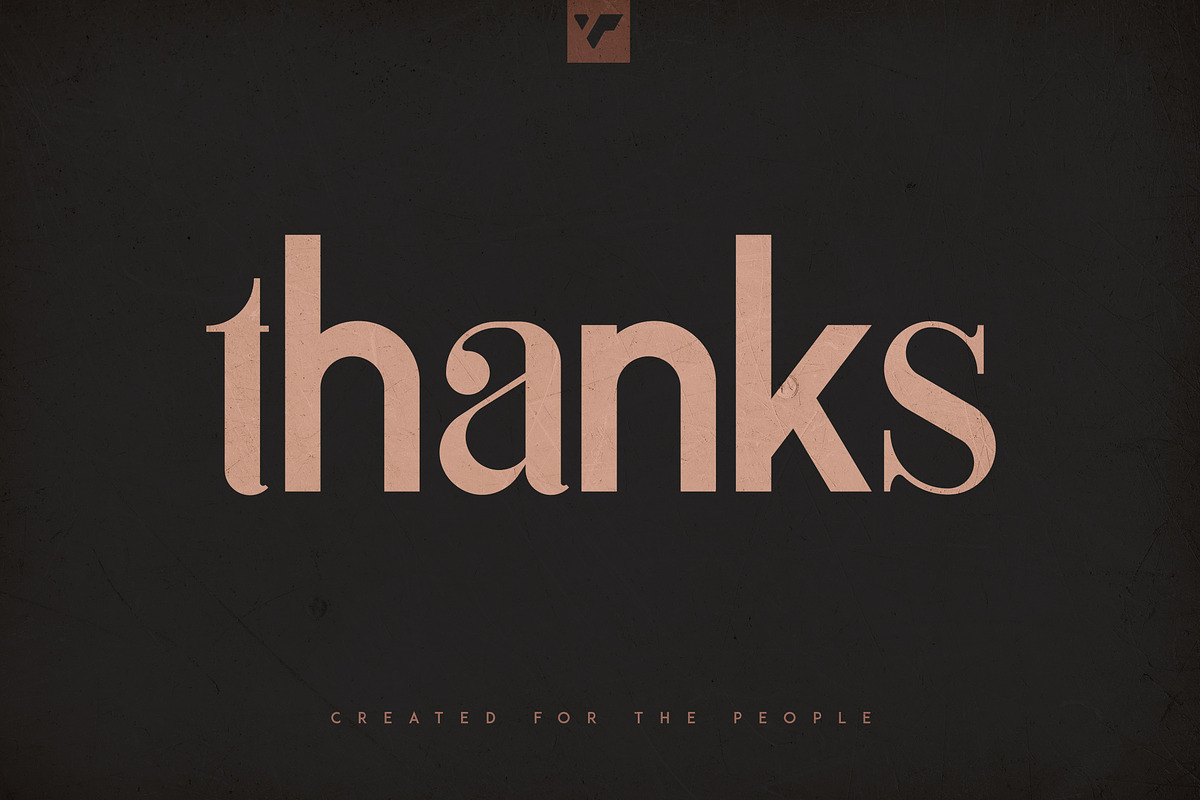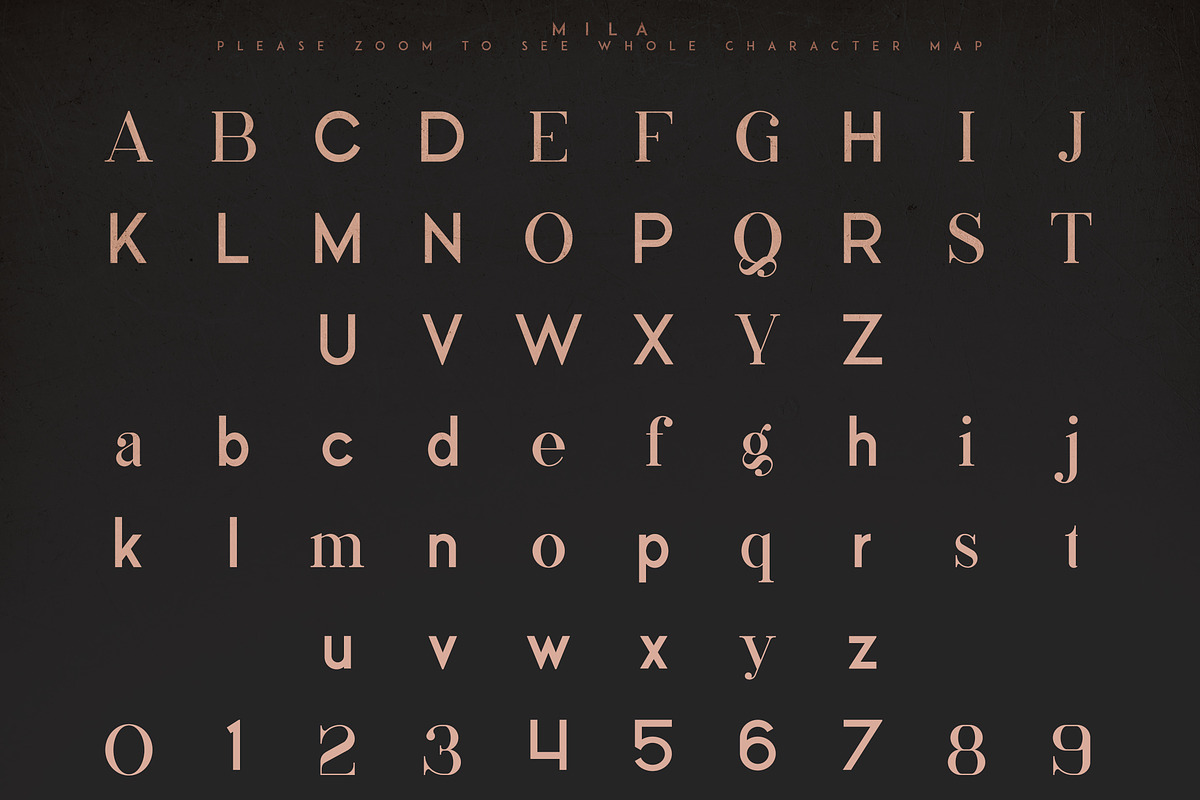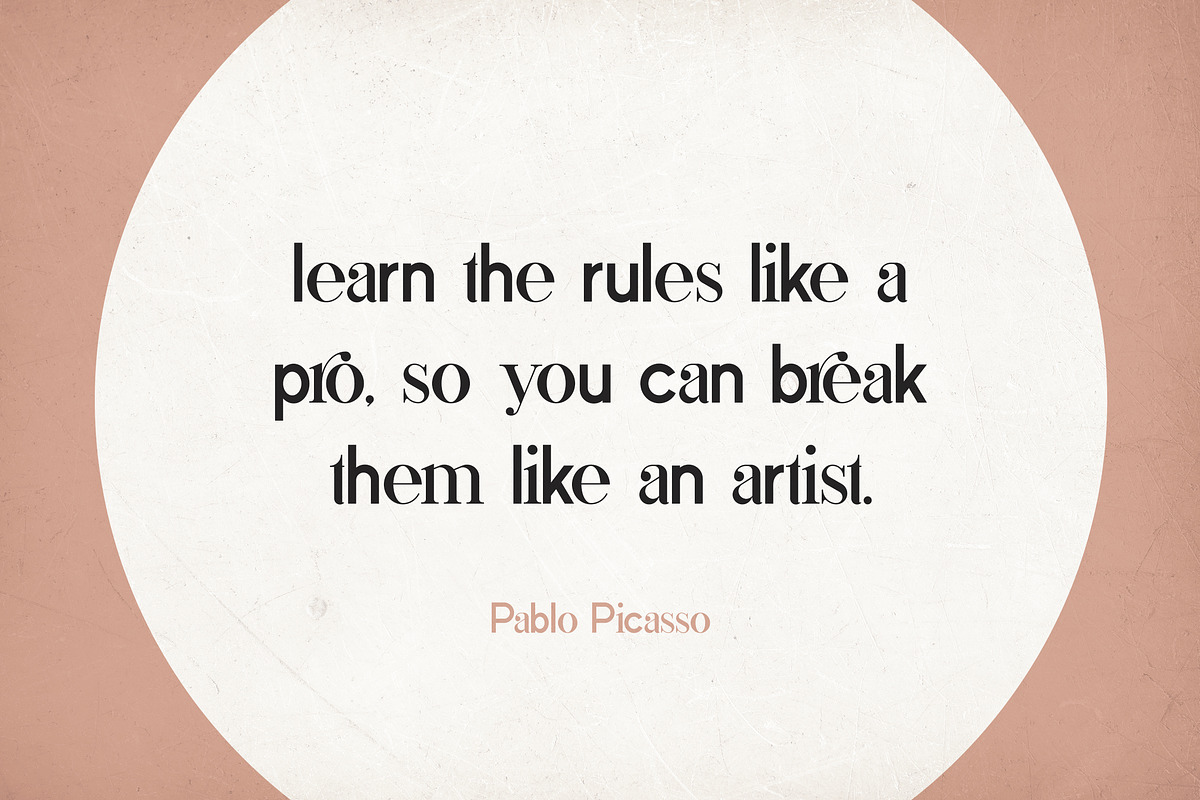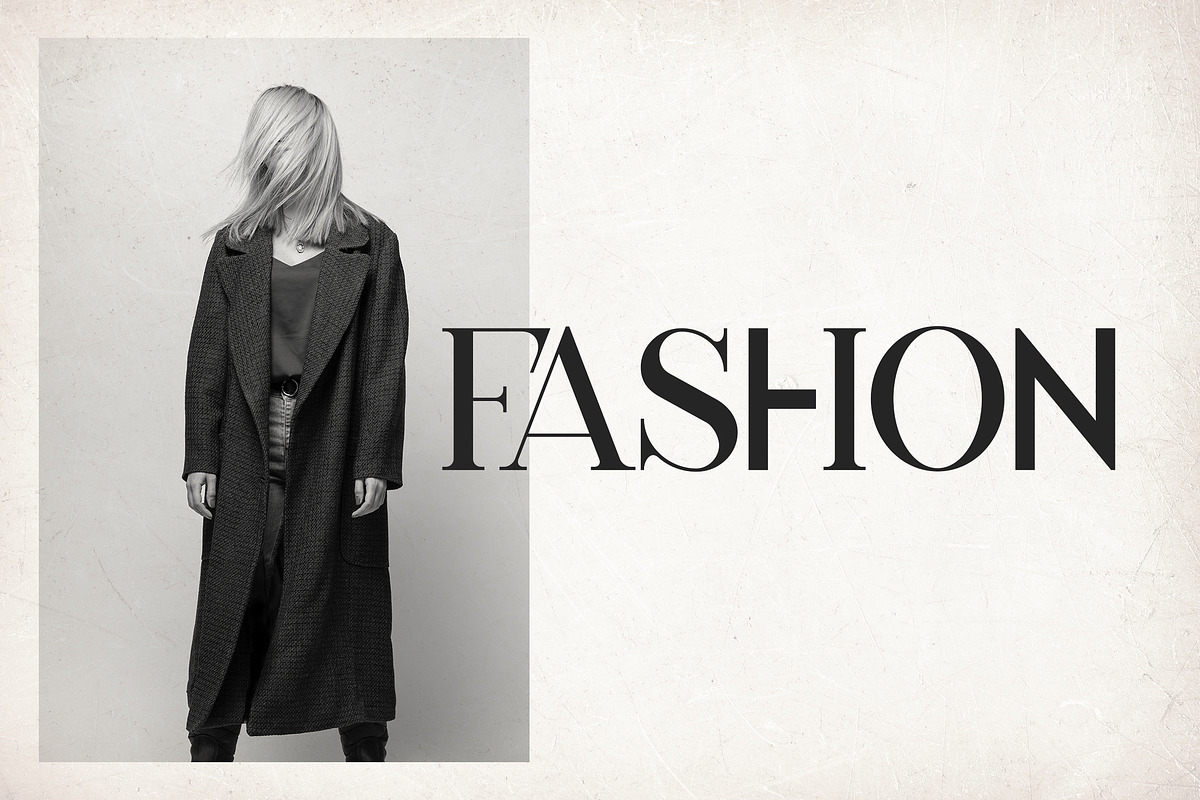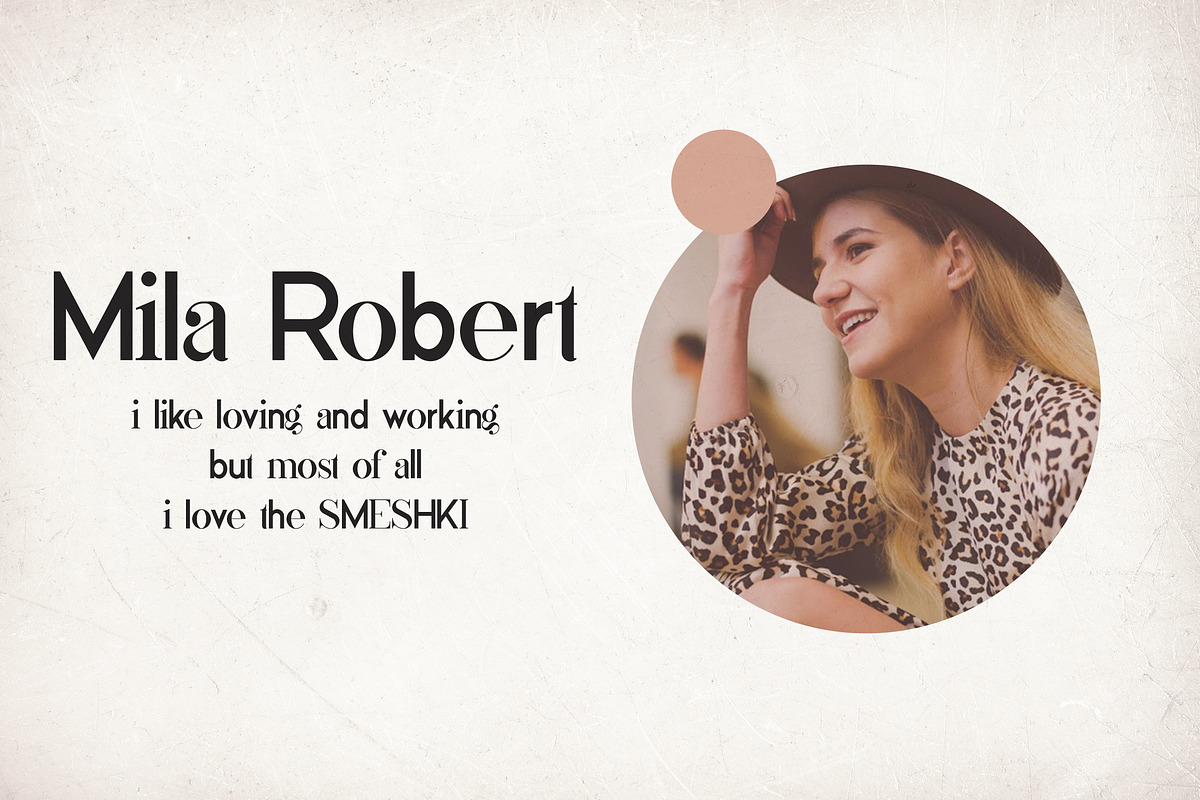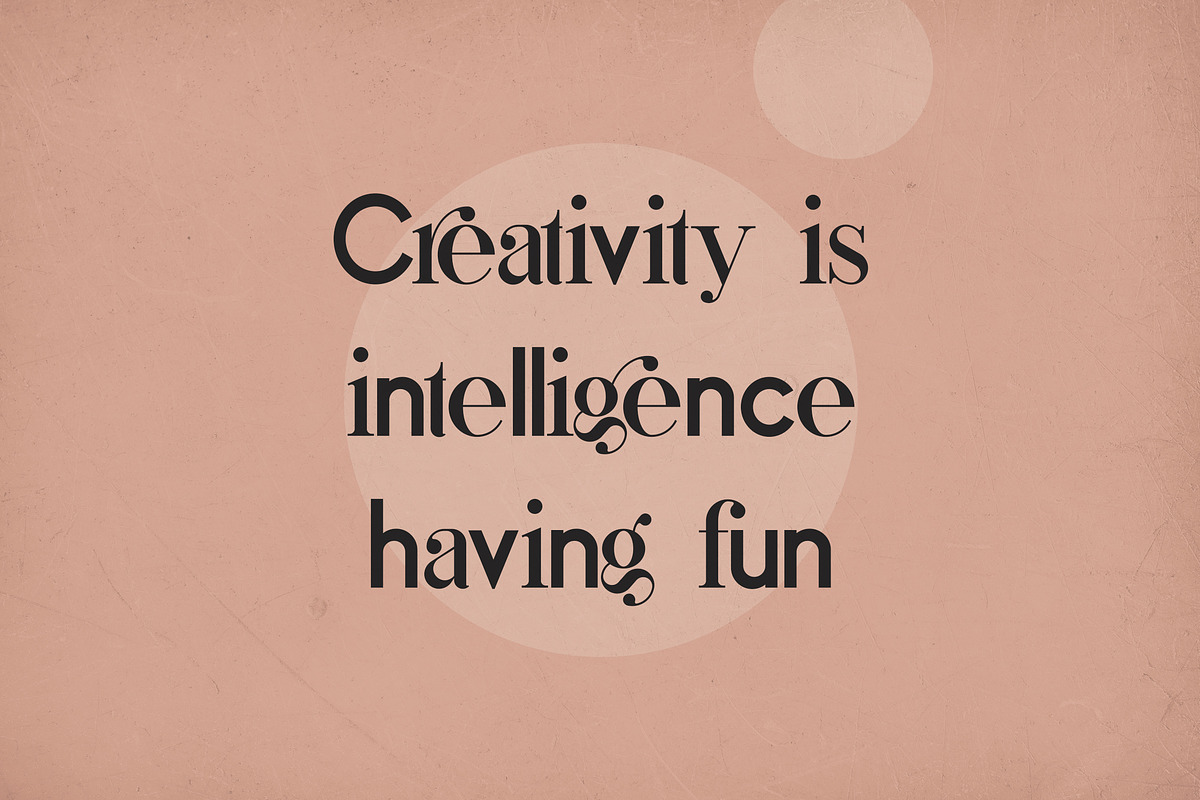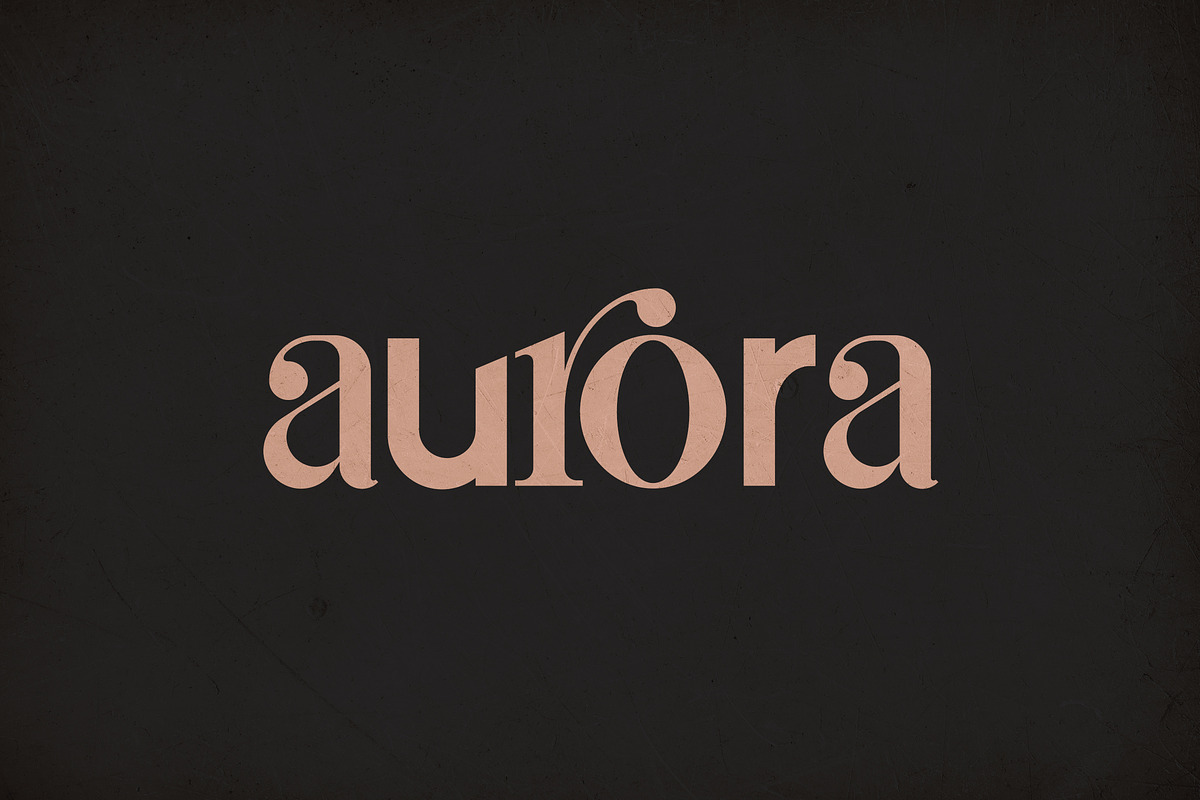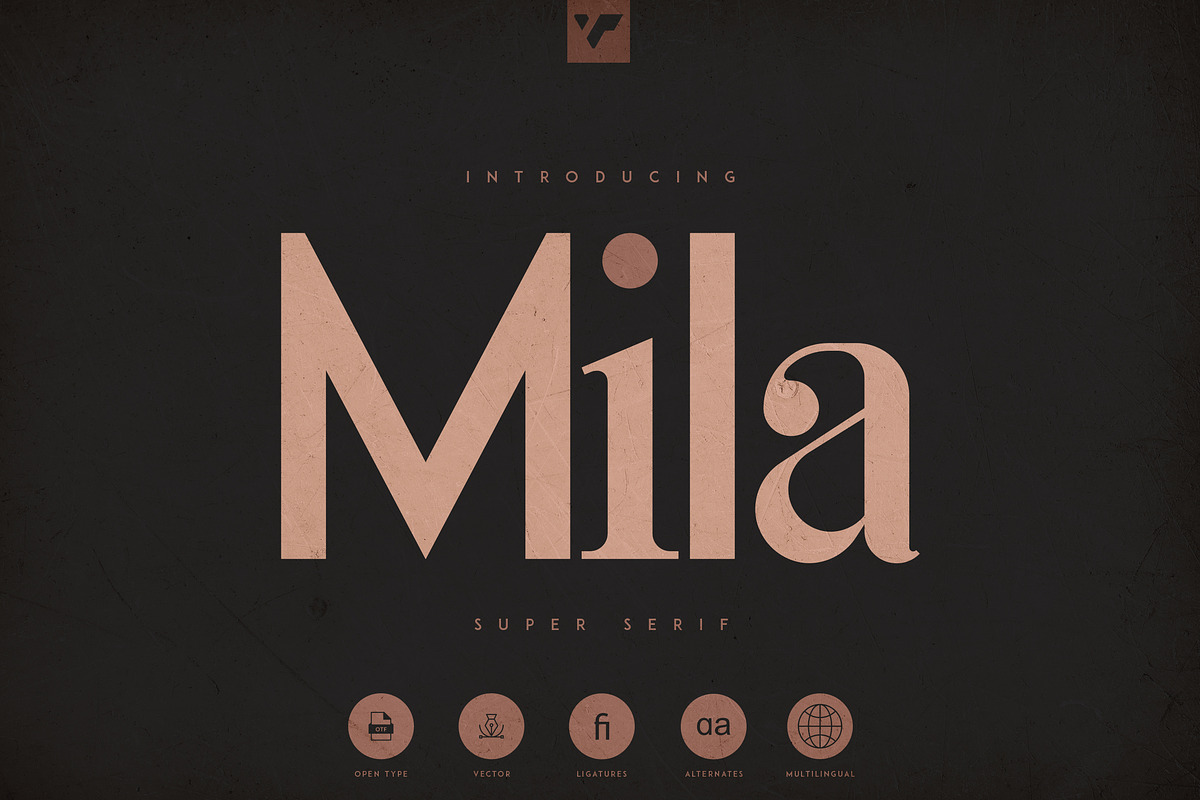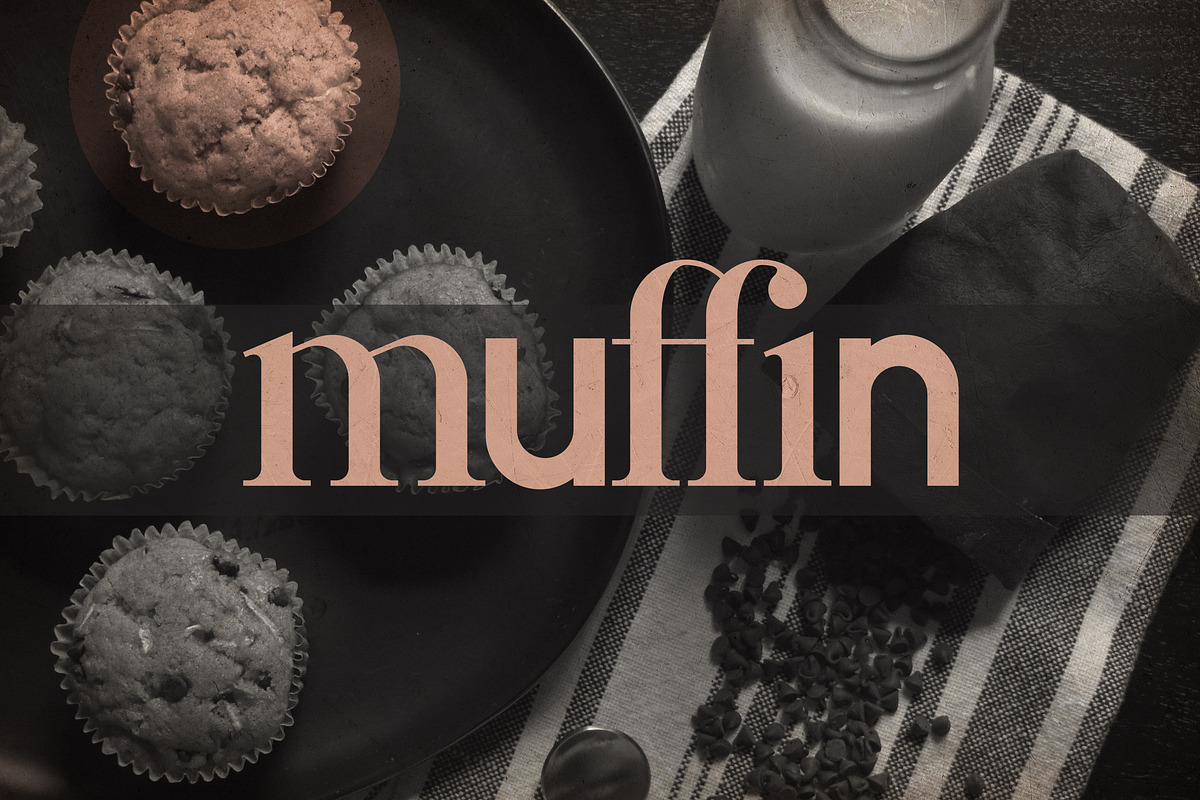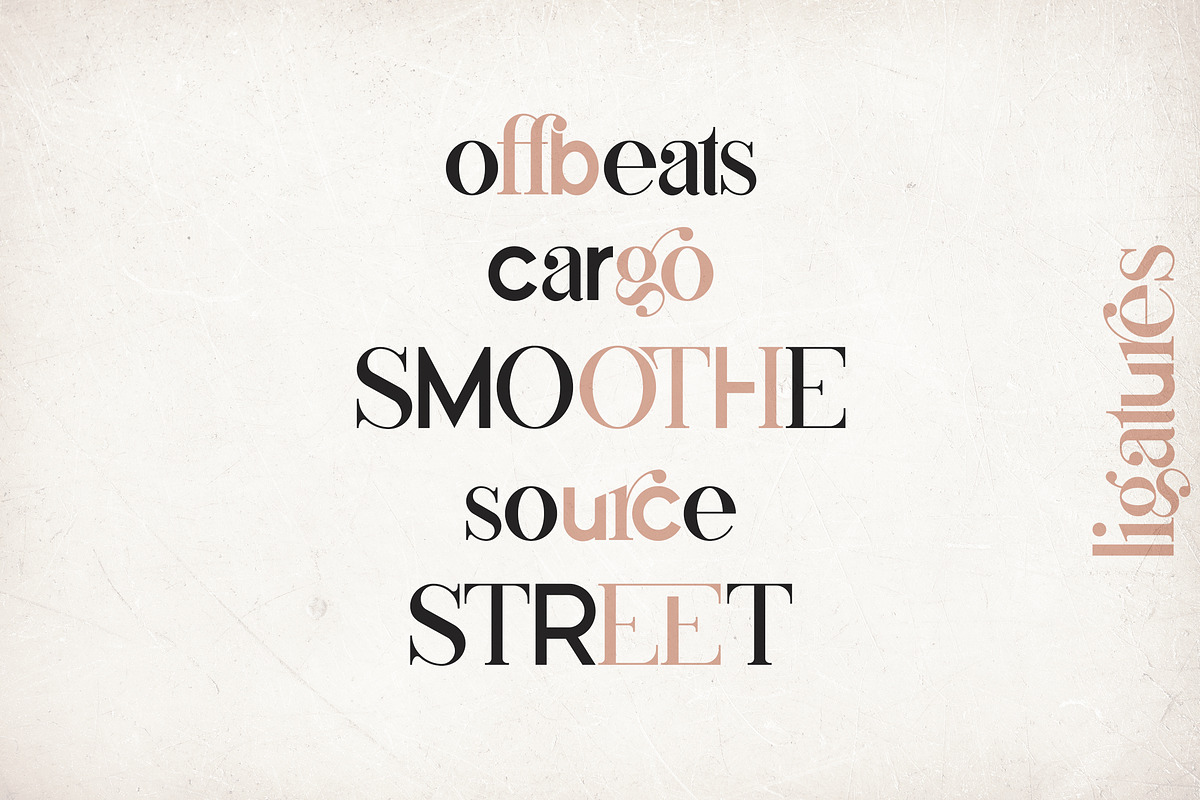
Mila - Innovative Super Serif Font
Introducing Mila - Innovative Super Serif Font
Mila is fusion of sans serif and serif styles, loaded with ligature glyphs and multilingual support. Very versatile font that works great in large and small sizes.
Mila is perfect for branding projects, home-ware designs, product packaging, magazine headers - or simply as a stylish text overlay to any background image.
- Never seen before